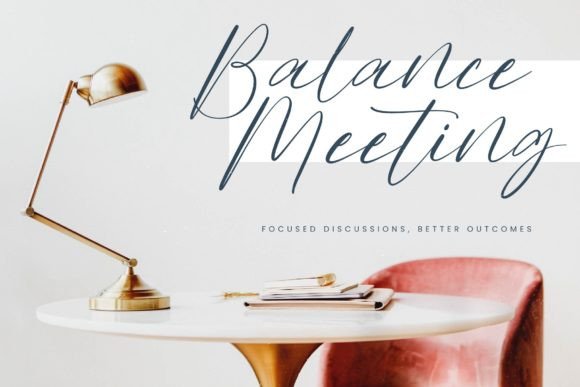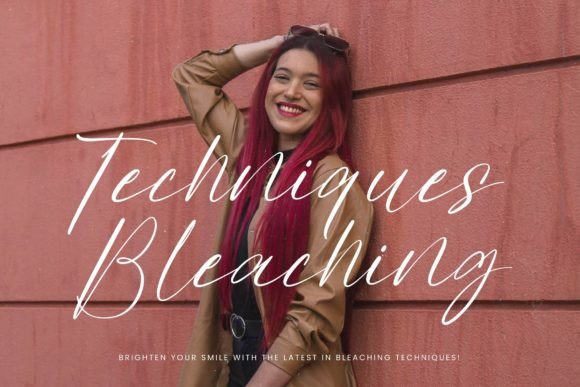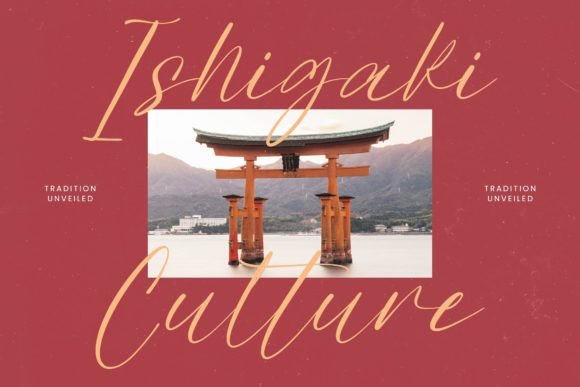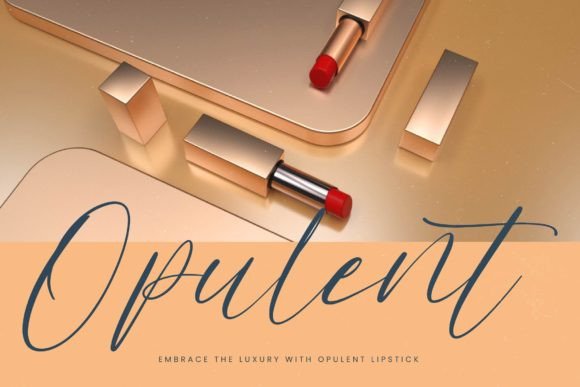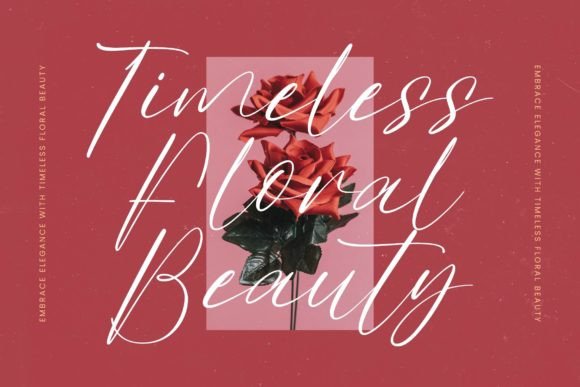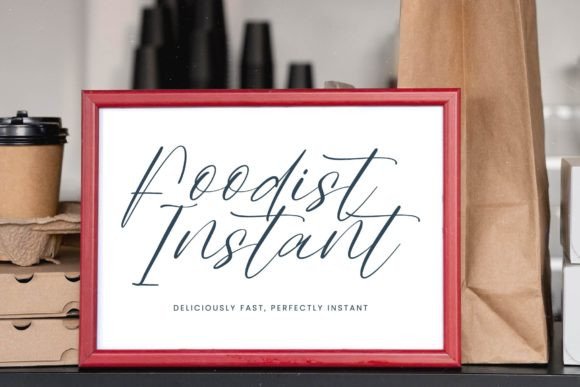
Introducing Butterfly Wonders Font: Elevate Your Designs with Luxury and Elegance
In the world of design, fonts play a crucial role in conveying the message and aesthetic of a project. For those seeking to add a touch of luxury and sophistication, the Butterfly Wonders Font from Letterena is an exceptional choice. This modern freestyle font is a versatile and elegant script font, perfect for a wide range of applications, from logos and branding to packaging, posters, and more.
What is Butterfly Wonders Font?
Butterfly Wonders is a luxury script font that embodies the essence of modern freestyle typography. Its fluid, dynamic lines and elegant curves make it an ideal choice for designers looking to add a touch of sophistication to their projects. The font’s versatility allows it to be used in various contexts, making it a valuable addition to any designer’s toolkit.
Key Features of Butterfly Wonders Font
- Luxury Script Style: Butterfly Wonders boasts a luxurious script style that adds an air of elegance to any project.
- Modern Freestyle: The font’s modern freestyle approach makes it perfect for designers looking for a contemporary look.
- High Versatility: Suitable for a wide range of projects, including logos, branding, packaging, posters, and more.
- Elegant and Sophisticated: The font’s elegant curves and fluid lines make it perfect for projects that require a touch of sophistication.
Use Cases for Butterfly Wonders Font
The possibilities are endless when it comes to using Butterfly Wonders Font. Here are some of the many projects where this luxury script font can shine:
- Logos and Branding Projects: Create a lasting impression with a luxurious logo that sets your brand apart.
- Homeware Designs: Add a touch of elegance to your homeware designs, from stationery to textiles.
- Product Packaging: Elevate your product packaging with a sophisticated font that reflects your brand’s luxury image.
- Mugs, Quotes, Posters: Create stunning designs for mugs, quotes, and posters that showcase your creativity.
- Shopping Bags, T-shirts, Book Covers: Use Butterfly Wonders Font to create eye-catching designs for shopping bags, t-shirts, book covers, and more.
- Name Cards, Invitation Cards, Greeting Cards: Add a touch of luxury to your name cards, invitation cards, and greeting cards.
- Labels, Photography, Watermark: Use the font to create elegant labels, watermarks, and photography designs.
- Special Events: Make your special events, such as weddings and galas, even more memorable with luxurious designs.
Why Choose Butterfly Wonders Font?
With so many fonts available, why choose Butterfly Wonders Font? Here are a few compelling reasons:
- Unique and Distinctive: The font’s modern freestyle approach and elegant curves make it stand out from more traditional fonts.
- Highly Versatile: Suitable for a wide range of projects, from luxury branding to everyday designs.
In conclusion, Butterfly Wonders Font from Letterena is an exceptional luxury script font that can elevate your designs to new heights. Its modern freestyle approach, elegant curves, and high versatility make it perfect for a wide range of projects. Whether you’re a designer, crafter, or DIY enthusiast, this font is sure to become a valuable addition to your toolkit. So why wait? Download Butterfly Wonders Font today and experience the power of luxury typography.